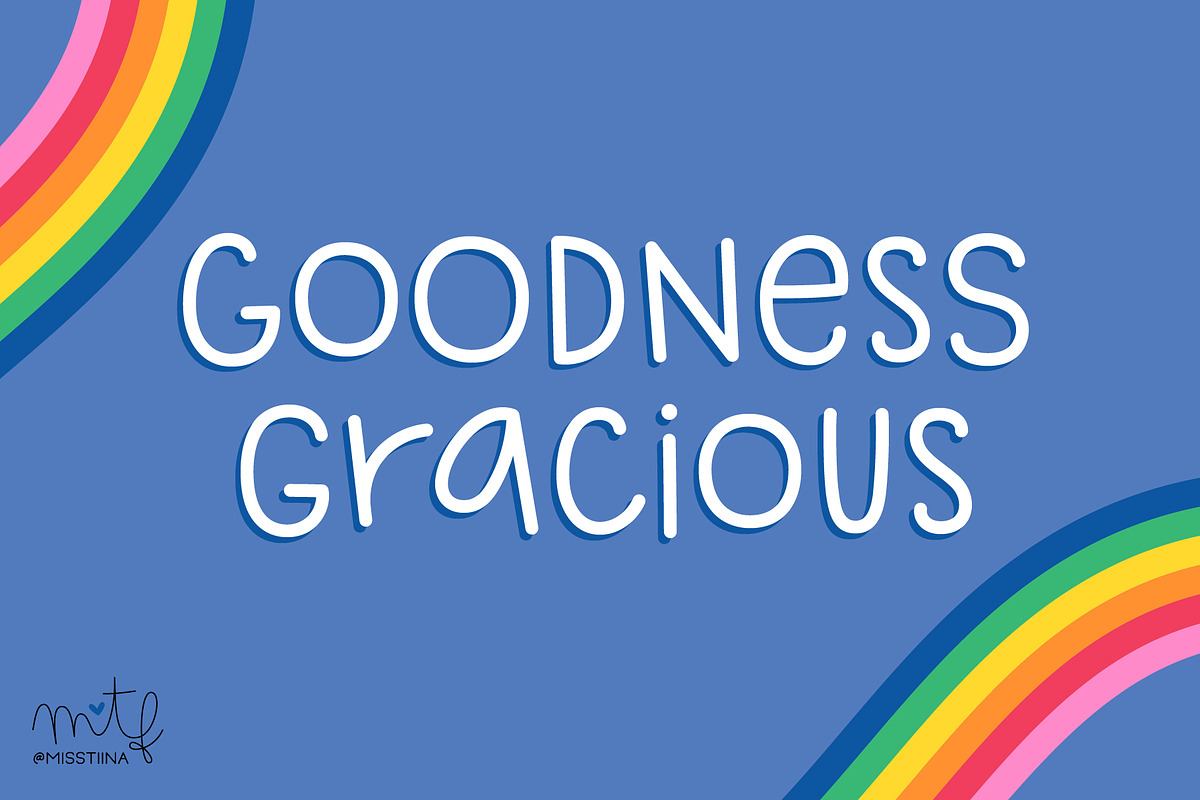
Goodness Gracious Font Free Download is a fun and charming handwritten typeface that brings a sense of warmth and personality to any project. With its smooth curves, playful design, and whimsical feel, this font is perfect for invitations, greeting cards, children's projects, social media graphics, and more.
Its friendly, informal style adds a joyful touch to any design, making it ideal for anything that needs a personal, heartfelt vibe. Whether you're designing for a cozy brand or creating a special occasion invite, Goodness Gracious delivers the perfect handwritten flair. Goodness Gracious Font Free Download lets you explore its delightful style in personal projects before purchasing a commercial license.
Add some fun and friendliness to your designs with Goodness Gracious — the font that makes everything a little bit sweeter.